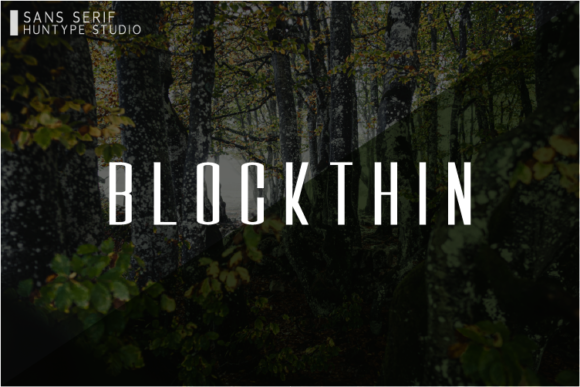
Blockthin Font
Font Name : Blockthin Font
Author : Huntype
Leap into the world of modern typography with Blockthin, a font that captivates with its clean lines, elegant curves, and timeless appeal. A creation of Huntype, this sans serif font is a masterpiece of contemporary design, meticulously crafted to infuse your creative projects with a touch of sophistication.
Blockthin's versatility shines in its ability to effortlessly blend traditional influences with a modern aesthetic. Whether you're designing logos, branding materials, packaging, or any other design project, Blockthin seamlessly adapts, adding a touch of class and distinction. Its crisp, defined strokes and carefully balanced proportions create a visually striking impact that commands attention.
Unleash your creativity and push the boundaries of design with Blockthin. Its versatility extends to a wide range of applications, making it an indispensable tool for designers of all levels. From sleek and minimalist logos to bold and expressive branding, Blockthin effortlessly elevates your designs, leaving a lasting impression on your audience.
Experience the transformative power of Blockthin and unlock a world of creative possibilities. This font is more than just a collection of letters; it's an artistic expression that breathes life into your designs. Its elegant simplicity and timeless appeal make it a true must-have for designers seeking to make a statement.
Embrace the beauty of modern typography and let Blockthin guide you on a journey of creativity. Discover the endless possibilities that await you as you explore the depths of this remarkable font. Blockthin is not just a font; it's an investment in your design arsenal, a key to unlocking a world of captivating designs that will leave your audience in awe.